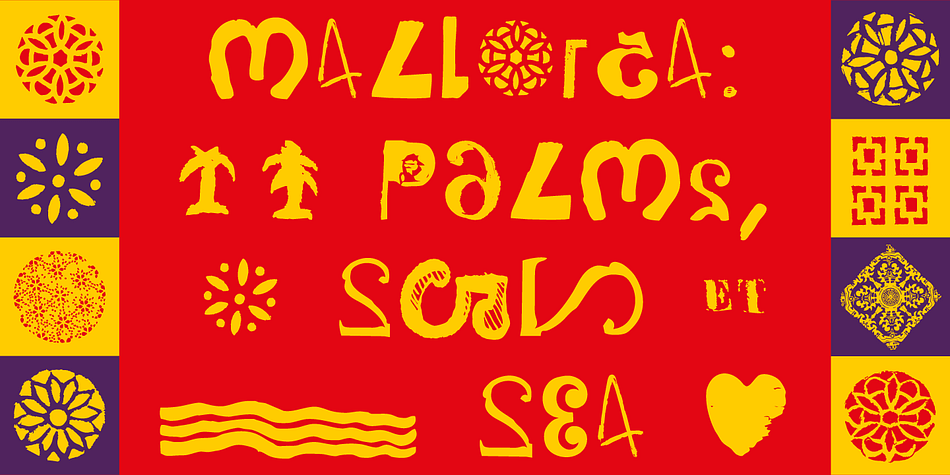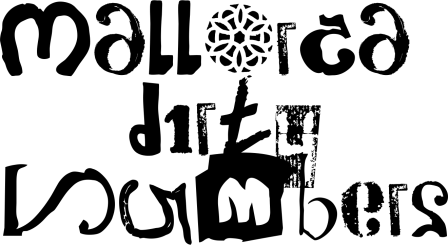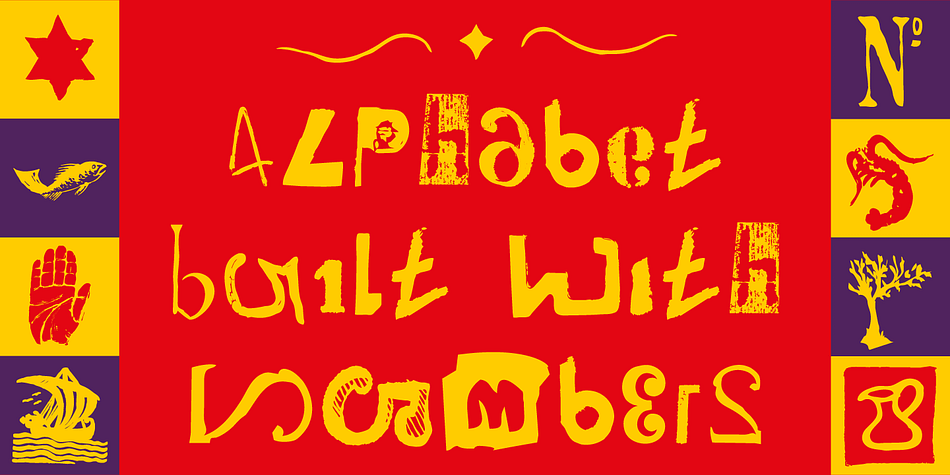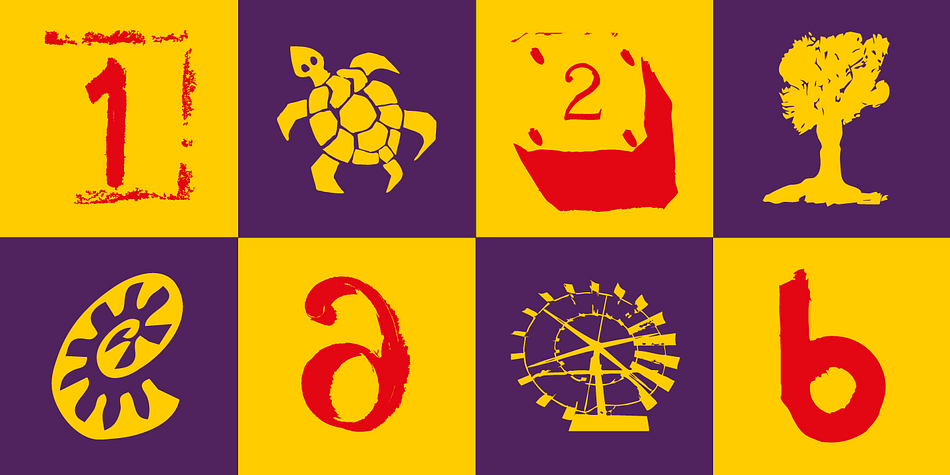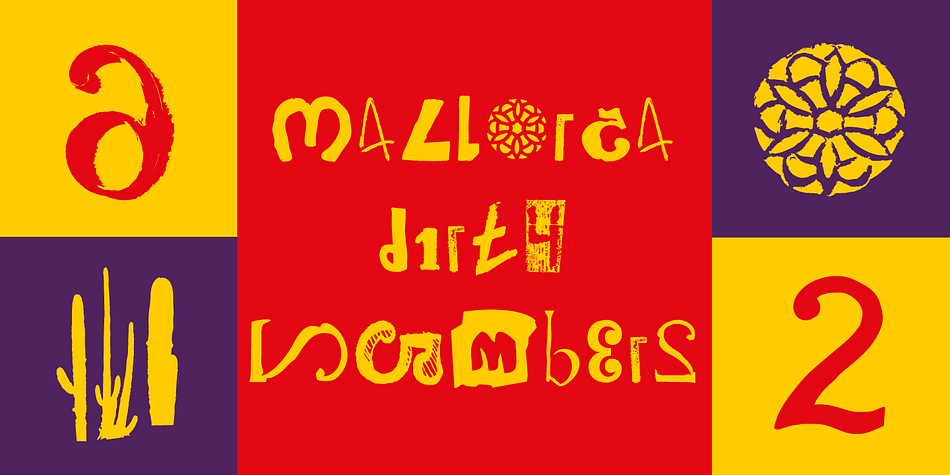
Designed by Manuel Viergutz, Mallorca Dirty Numbers is a dingbat and novelty font published by Typo Graphic Design.
The typeface “Mallorca Dirty Numbers Vol 1” is designed for the Typo Graphic Design font foundry in 2017 by Manuel Viergutz. The playful display font is designed on holiday photos of different numbers (house numbers, graffitis, handwritten menu cards …) from Mallorca. An alphabet built with numbers.
524 glyphs with A–Z, a–z, 0–9 and 99+ decorative extras like ornaments, arrows, dingbats, emojis, symbols, geomatric shapes, catchwords, decorative ligatures (type the word “LOVE” for ❤ or “SMILE” for ☺as OpenType-Feature dlig ) and of course many many numbers (20+ stylistic sets). For use in logos, magazines, posters, advertisement plus as webfont for decorative headlines. The font works best for display size.